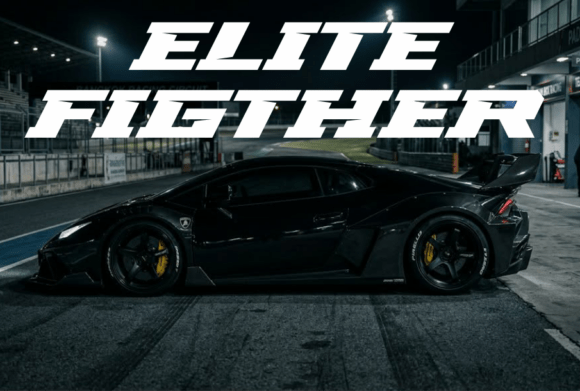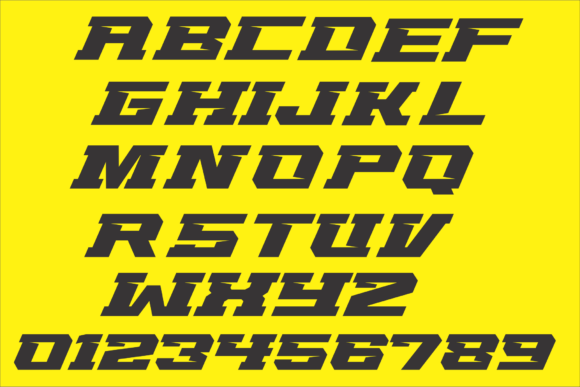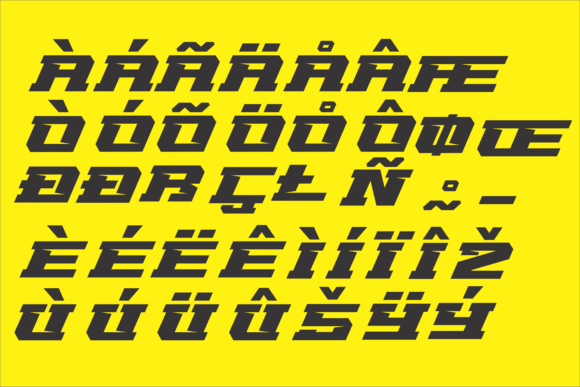
Unleash Your Design’s Full Potential with Elite Fighter Font
Are you looking for a font that can add a touch of high-octane energy to your designs? Look no further than Elite Fighter, a powerful display font that’s engineered for speed and precision. This ultra-wide, slanted typeface is perfect for designers and crafters who want to create visually stunning graphics that exude a sense of forward momentum and aerodynamic grace.
The Perfect Font for High-Impact Designs
Elite Fighter is an extraordinary choice for racing-themed branding, extreme sports graphics, gaming titles, and high-impact automotive editorial headers. Its unique letterforms are designed to deliver a sense of professional authority and legendary competitive energy to your visual identity. Whether you’re creating a logo, poster, or website header, Elite Fighter is sure to make a lasting impression.
Key Features of Elite Fighter Font
- Ultra-wide letterforms: Elite Fighter’s letterforms are designed to be wide and expansive, making them perfect for headlines and titles that need to make a big impact.
- Slanted design: The slanted design of Elite Fighter gives it a sense of dynamic movement and energy, making it perfect for designs that need to convey a sense of speed and precision.
- High-velocity presence: Elite Fighter has a unique presence that commands attention and demands to be noticed. Its bold, confident letterforms are sure to make your headlines stand out from the crowd.
Why Choose Elite Fighter Font?
So why choose Elite Fighter font for your next design project? Here are just a few reasons:
- Unique and memorable: Elite Fighter is a truly unique font that’s sure to make your designs stand out from the crowd. Its bold, slanted letterforms are unlike anything else out there, making it a great choice for designers who want to create something truly memorable.
- Versatile: Elite Fighter is a versatile font that can be used for a wide range of design projects, from racing-themed branding to gaming titles and high-impact automotive editorial headers.
- Easy to read: Despite its bold and slanted design, Elite Fighter is surprisingly easy to read, making it perfect for headlines and titles that need to be noticed.
How to Use Elite Fighter Font in Your Designs
Using Elite Fighter font in your designs is easy. Here are a few tips to get you started:
- Use it for headlines: Elite Fighter is perfect for headlines and titles that need to make a big impact. Use it to create bold, attention-grabbing headlines that demand to be noticed.
- Pair it with other fonts: Elite Fighter can be paired with other fonts to create a unique and visually appealing design. Try pairing it with a clean, sans-serif font for a bold and modern look.
- Experiment with colors: Elite Fighter looks great in a wide range of colors, from bold and bright to metallic and dark. Experiment with different colors to find the perfect look for your design.
Elite Fighter font is a powerful and versatile typeface that’s perfect for designers and crafters who want to create visually stunning graphics that exude a sense of speed and precision. Its ultra-wide, slanted letterforms make it perfect for racing-themed branding, extreme sports graphics, gaming titles, and high-impact automotive editorial headers. With its unique and memorable design, Elite Fighter is sure to make a lasting impression on your audience.
Get Ready to Shift Your Designs into High Gear
So why wait? Get ready to shift your designs into high gear with Elite Fighter font. With its bold, slanted letterforms and high-velocity presence, Elite Fighter is the perfect choice for designers who want to create visually stunning graphics that demand to be noticed. Try it out today and see the difference it can make in your designs!